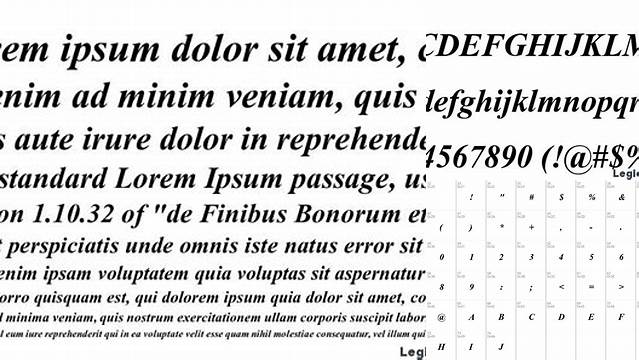
Hey guys! Are you looking to add a touch of elegance and sophistication to your design projects? Look no further! In this article, we will dive deep into the world of the Angsana New Bold Italic font, a stunning typeface that can elevate your creative endeavors. We'll explore its history, characteristics, and, most importantly, how you can download it for free. So, buckle up and get ready to discover the beauty and versatility of this fantastic font!
What is Angsana New Bold Italic?
Angsana New Bold Italic is more than just a font; it's a statement. This typeface belongs to the Angsana family, a popular Thai font designed to be both aesthetically pleasing and highly readable. The Bold Italic variant, in particular, combines the strong, assertive nature of a bold font with the graceful, flowing lines of italics. This combination creates a unique visual impact, making it perfect for headlines, titles, and any text that needs to stand out. Angsana New Bold Italic is characterized by its clean lines, elegant curves, and a distinct Thai influence, making it a versatile choice for various design applications. Its legibility across different sizes and mediums is another key advantage, ensuring your message is clear and impactful whether it's on a business card or a billboard. This font exudes a sense of sophistication and professionalism, making it ideal for projects that require a touch of class. Think about how this font can transform your documents, presentations, and marketing materials. The bold weight adds emphasis, while the italic style brings a touch of personality and flair. This balance makes Angsana New Bold Italic a powerful tool in your design arsenal. In essence, Angsana New Bold Italic is a blend of strength and grace, a font that commands attention while maintaining readability and elegance. It's a testament to the art of typography, showcasing how a single font can significantly impact the overall aesthetic and effectiveness of your design.
Why Choose Angsana New Bold Italic?
Choosing the right font is crucial in any design project, and Angsana New Bold Italic offers a plethora of benefits that make it a standout choice. First and foremost, its distinctive style sets it apart. The combination of bold and italic creates a visually appealing contrast that grabs attention. This makes it perfect for headlines, subheadings, and any text you want to emphasize. Imagine using Angsana New Bold Italic for the title of your presentation or the header of your website – it immediately conveys a sense of professionalism and style. Secondly, Angsana New Bold Italic is incredibly versatile. It works well in both print and digital media, making it suitable for a wide range of projects. Whether you're designing a brochure, a website, or a social media graphic, this font will ensure your text looks polished and professional. Think about the possibilities – business cards, posters, invitations, and more. The font's adaptability makes it a valuable asset in any designer's toolkit. Furthermore, Angsana New Bold Italic boasts excellent readability. While it's stylish and eye-catching, it doesn't compromise on clarity. The letters are well-formed and spaced, making it easy to read even in smaller sizes. This is especially important for body text and other content-heavy applications. You want your message to be easily understood, and Angsana New Bold Italic helps you achieve that. Finally, the fact that Angsana New Bold Italic is available for free download is a major advantage. High-quality fonts can be expensive, but this font gives you access to a professional-grade typeface without breaking the bank. This makes it an excellent option for students, freelancers, and anyone on a budget. In conclusion, Angsana New Bold Italic is a winning combination of style, versatility, readability, and affordability. It's a font that can elevate your designs and help you communicate your message effectively.
Tips for Using Angsana New Bold Italic Effectively
Now that you've got Angsana New Bold Italic installed, let's talk about how to use it effectively. Like any font, it has its strengths and weaknesses, and understanding these will help you make the most of it. First off, Angsana New Bold Italic really shines in headlines and titles. Its bold and italic styling makes it eye-catching and attention-grabbing, perfect for making a strong first impression. Think about using it for the headings on your website, the title of your presentation, or the main text on a poster. The key is to use it sparingly; too much bold italic can become overwhelming and detract from the overall design. When it comes to body text, Angsana New Bold Italic can be a bit tricky. While it's generally readable, its stylized nature might not be the best choice for large blocks of text. If you do use it for body text, make sure to keep the font size large enough and the line spacing generous to ensure readability. It's often a better idea to pair Angsana New Bold Italic with a simpler, more neutral font for body text, such as a sans-serif font like Arial or Helvetica. This creates a nice contrast and makes your content easier to read. Pairing fonts is an art in itself, and choosing the right combination can significantly enhance the visual appeal of your design. When pairing with Angsana New Bold Italic, look for fonts that complement its elegance and sophistication without overshadowing it. Experiment with different combinations to see what works best for your specific project. In terms of design context, Angsana New Bold Italic is well-suited for projects that require a touch of formality and professionalism. It's a great choice for business documents, invitations, and marketing materials. However, it might not be the best fit for designs that are meant to be playful or whimsical. Consider the overall tone and message of your project when deciding whether to use this font. Finally, always remember to test your designs with different devices and screen sizes. What looks great on your computer screen might not look as good on a mobile device. Make sure your text is legible and your design elements are well-balanced across different platforms. By following these tips, you can harness the power of Angsana New Bold Italic and create stunning designs that capture attention and communicate your message effectively.
So there you have it, guys! A comprehensive guide to the Angsana New Bold Italic font. We've explored its unique characteristics, discussed why it's a great choice for various design projects, and, most importantly, showed you how to download and install it for free. This font is a fantastic addition to any designer's toolkit, offering a blend of elegance, boldness, and readability. Remember, effective typography is key to creating impactful designs. By understanding how to use fonts like Angsana New Bold Italic effectively, you can elevate your work and communicate your message with style and clarity. Whether you're designing a website, a presentation, or a simple document, this font can help you make a lasting impression. So go ahead, download Angsana New Bold Italic, experiment with its versatility, and let your creativity shine! Happy designing!